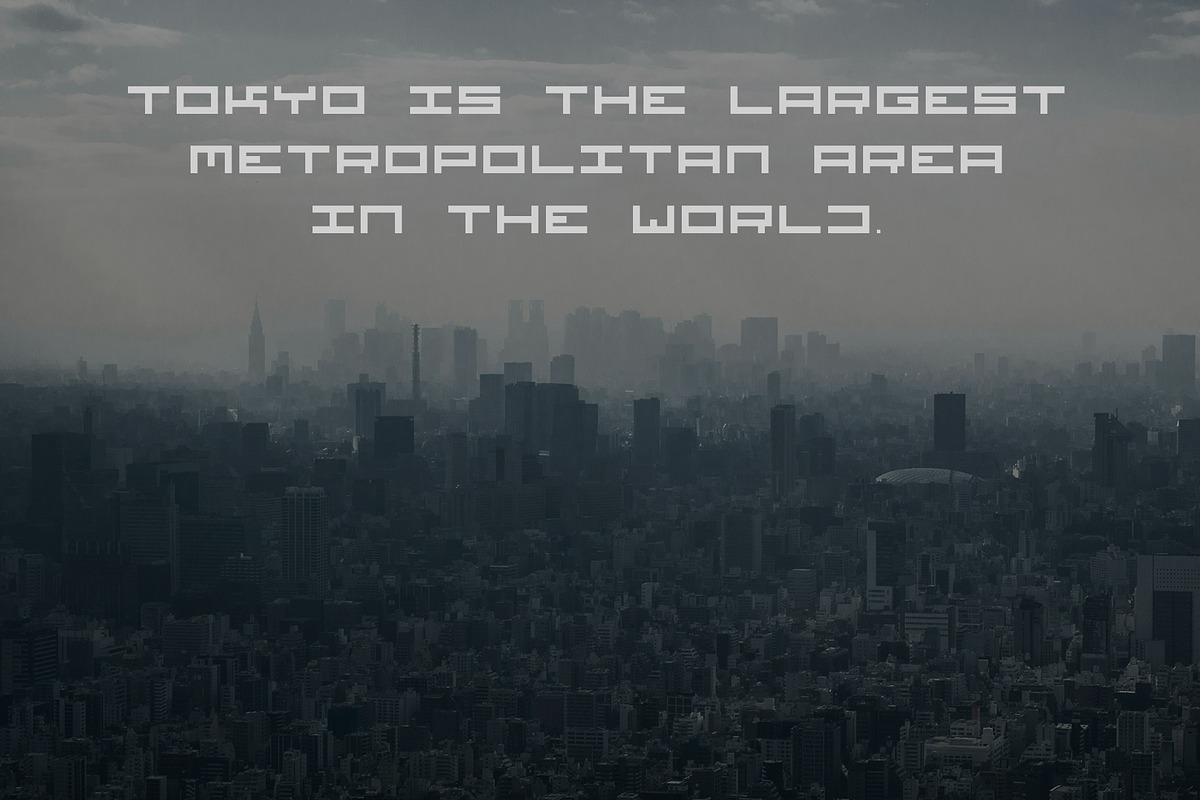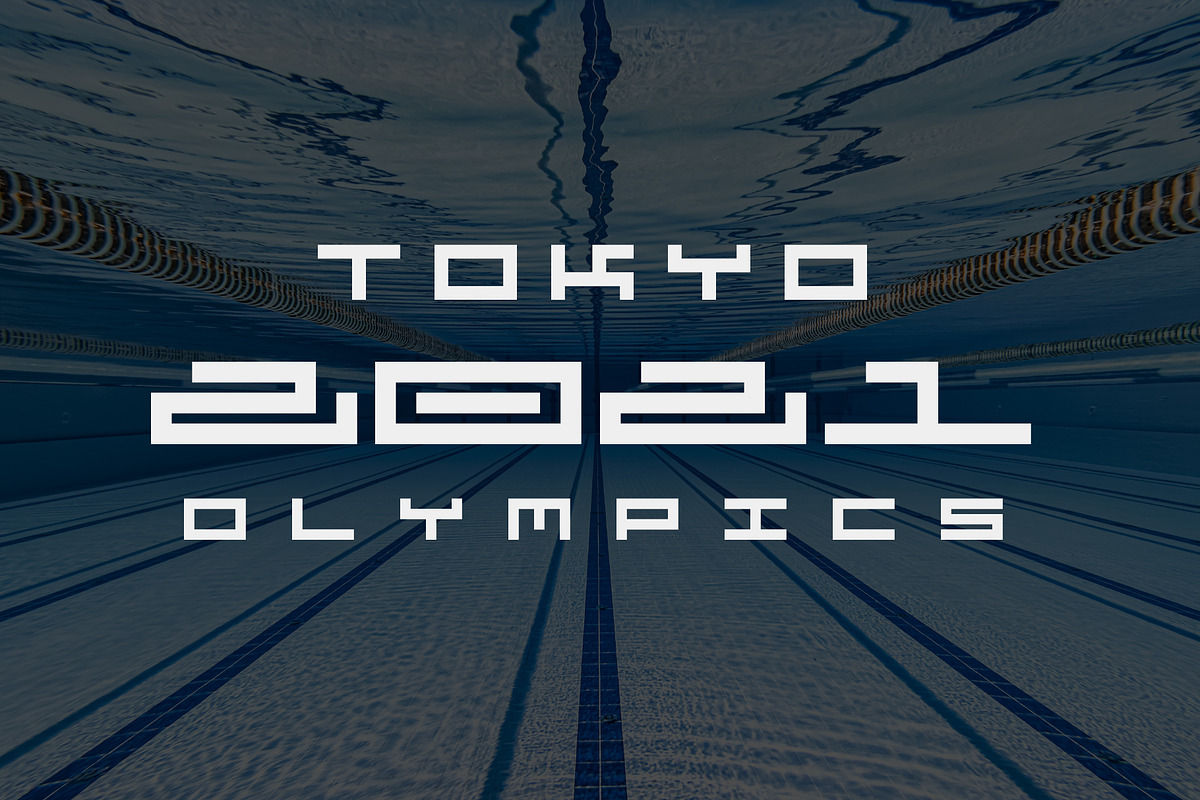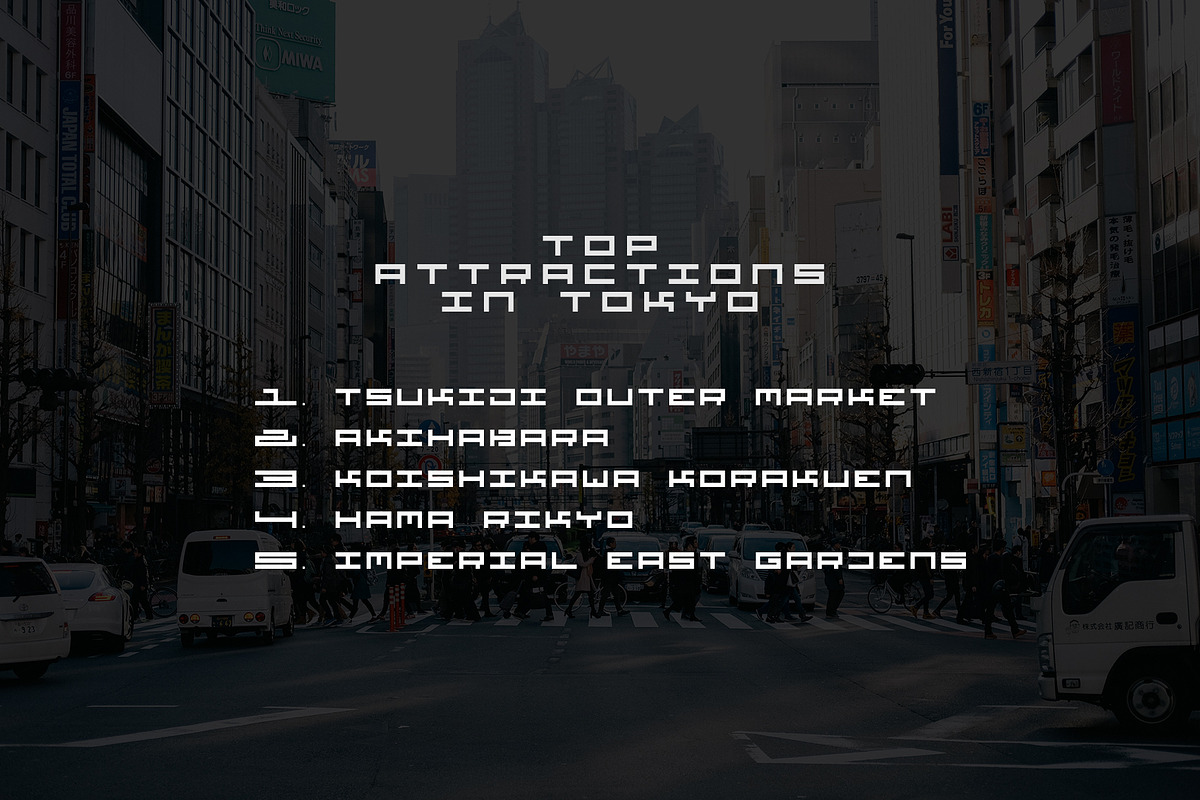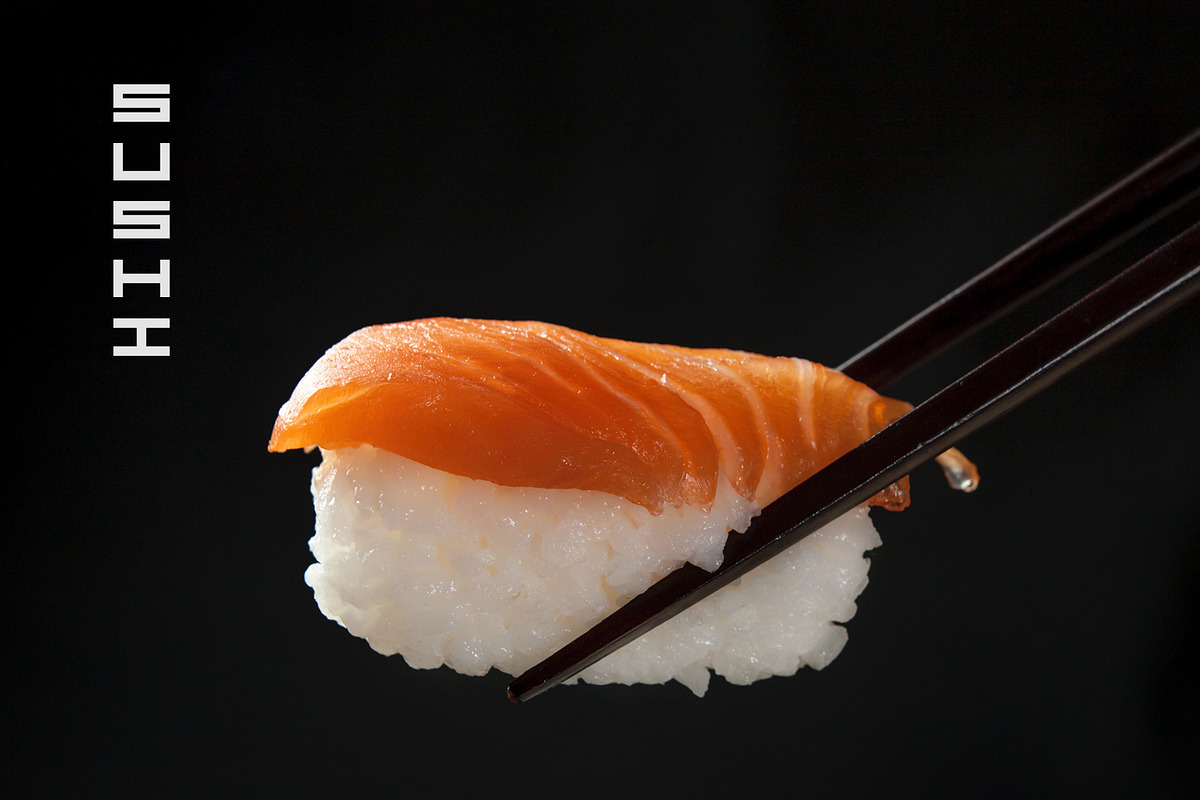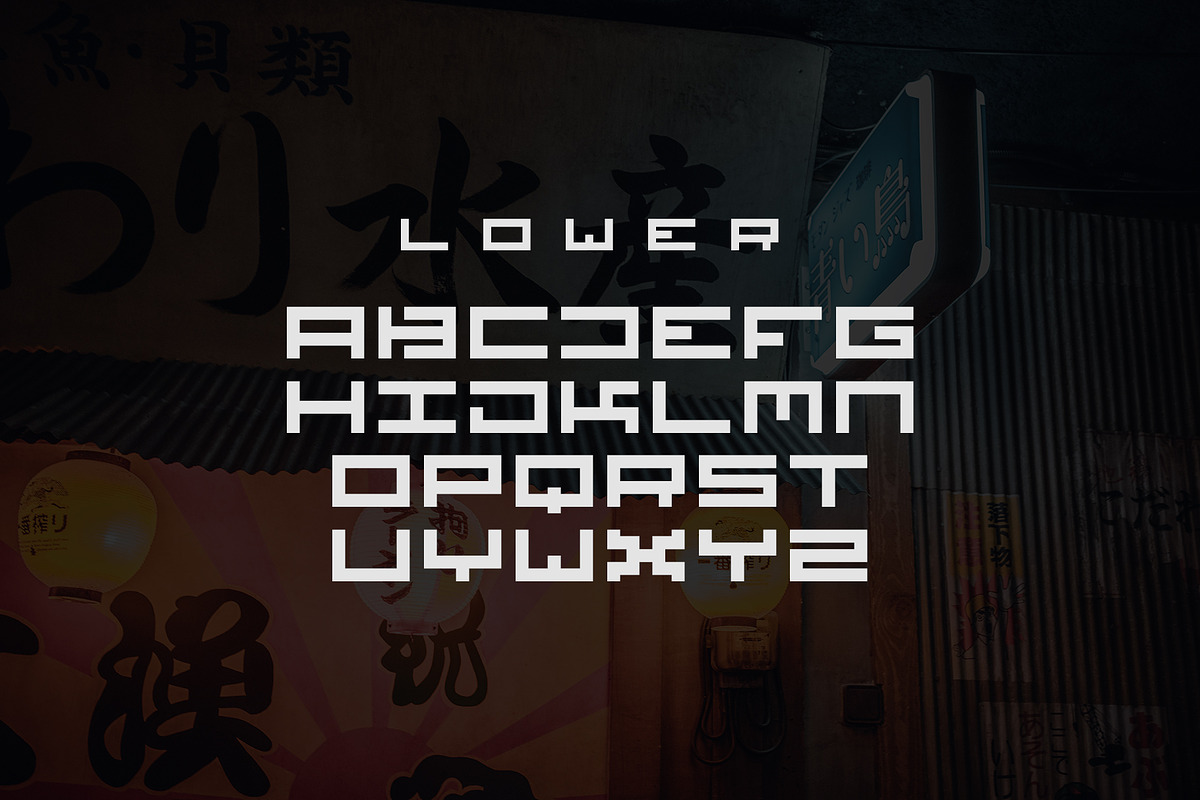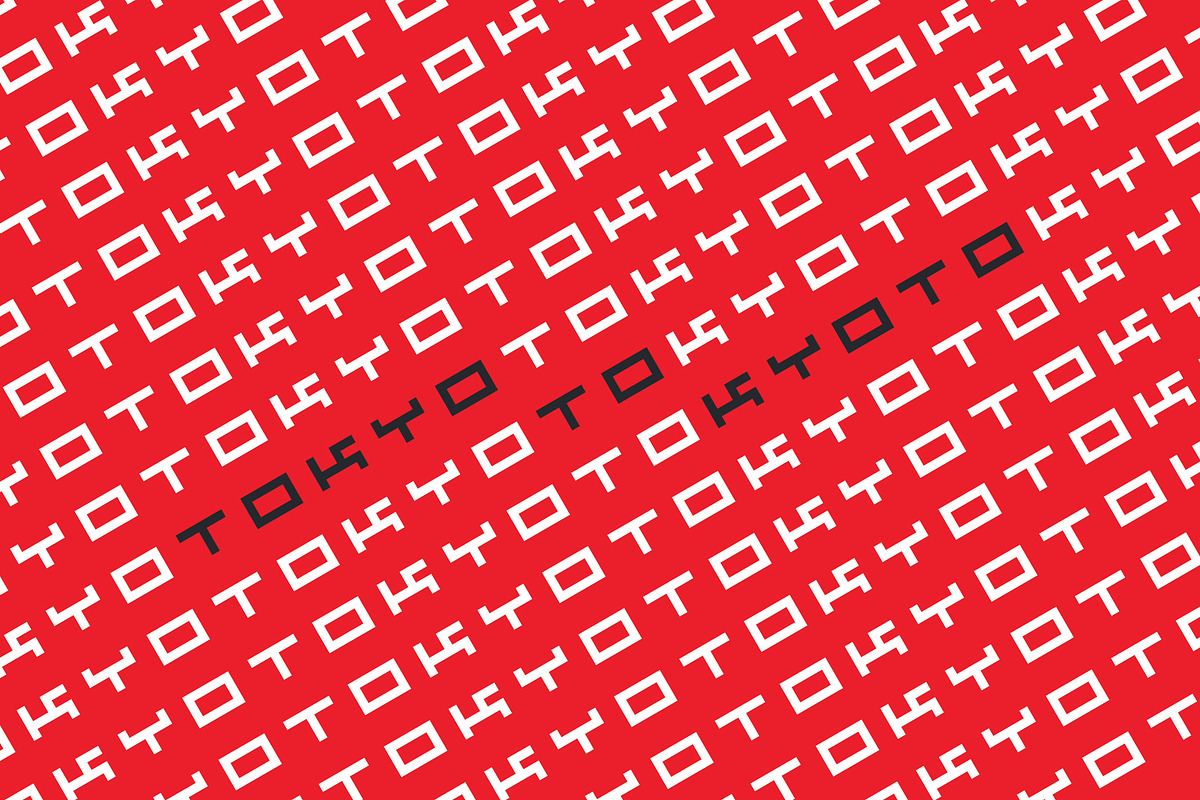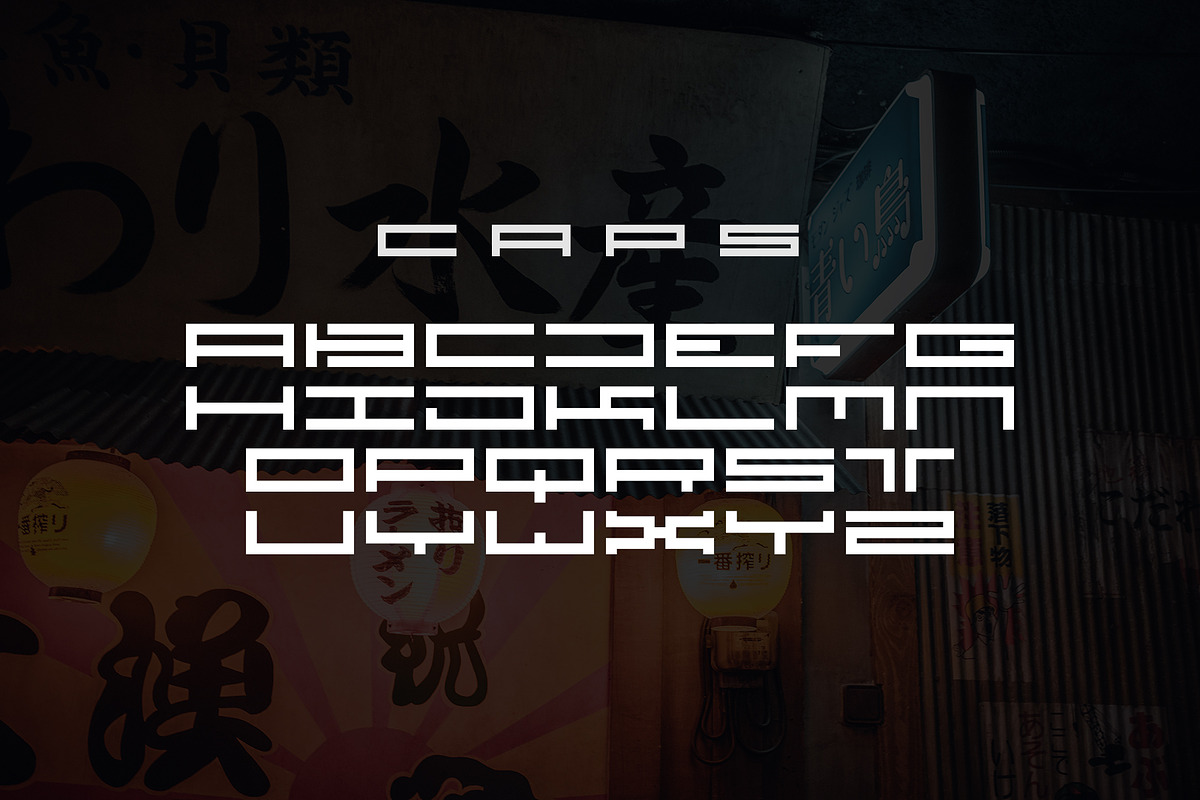
Tokyo - Minimal Japanese Typeface
Tokyo - Minimal Japanese Typeface by HipFonts is a font selected for branding, posters, packaging, typography.
Why Tokyo - Minimal Japanese Typeface is worth a look
Tokyo - Minimal Japanese Typeface by HipFonts fits naturally into Branding, posters, packaging, typography.